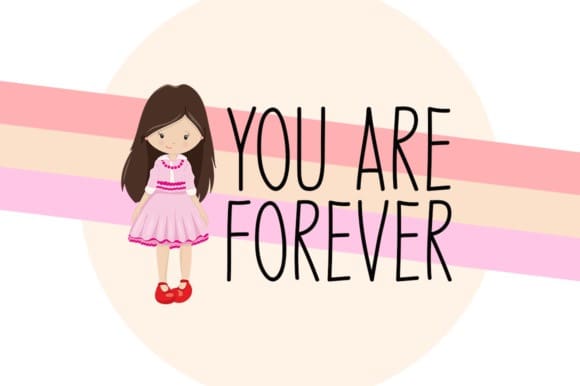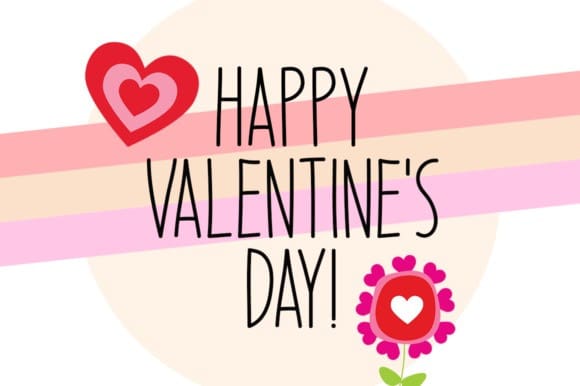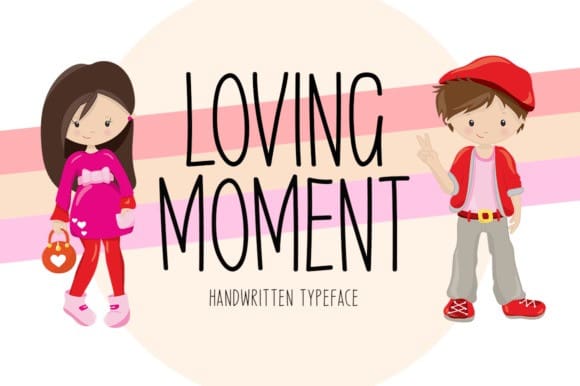
Loving Moment Font
Loving Moment Font is a simple lettered handwritten font. It can easily be matched to an incredibly large set of projects, so add it to your creative ideas and notice how it makes them stand out!